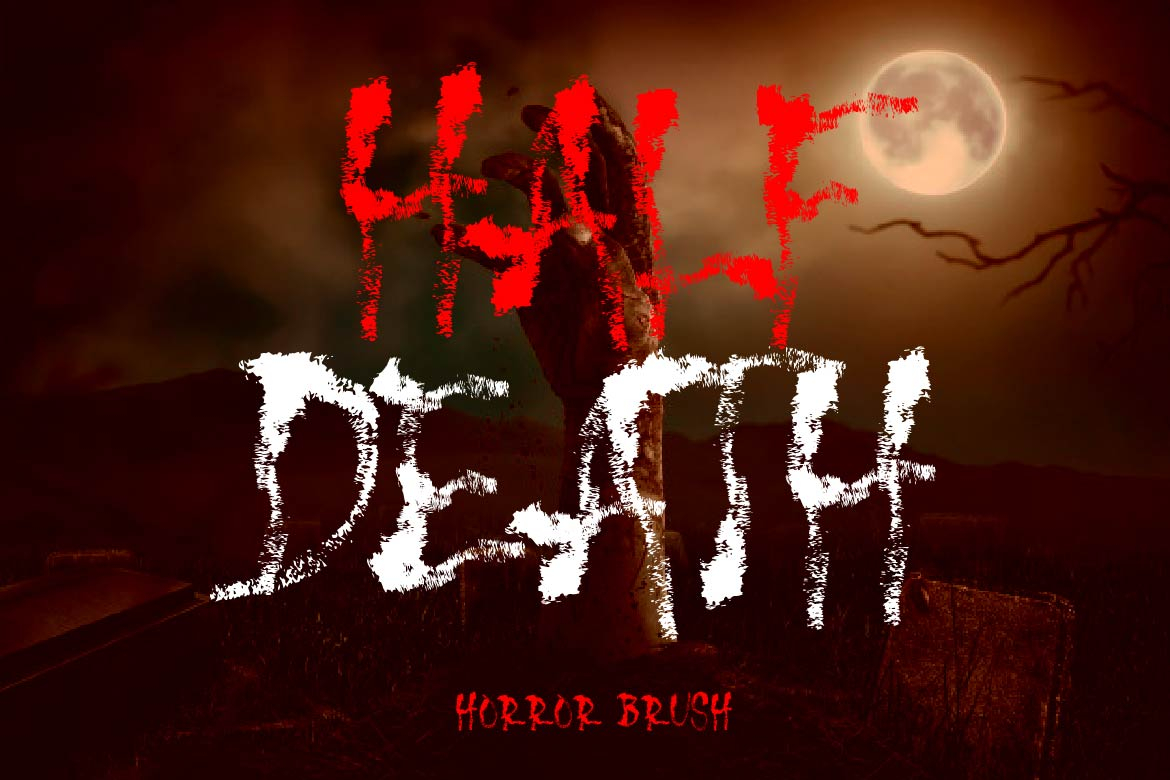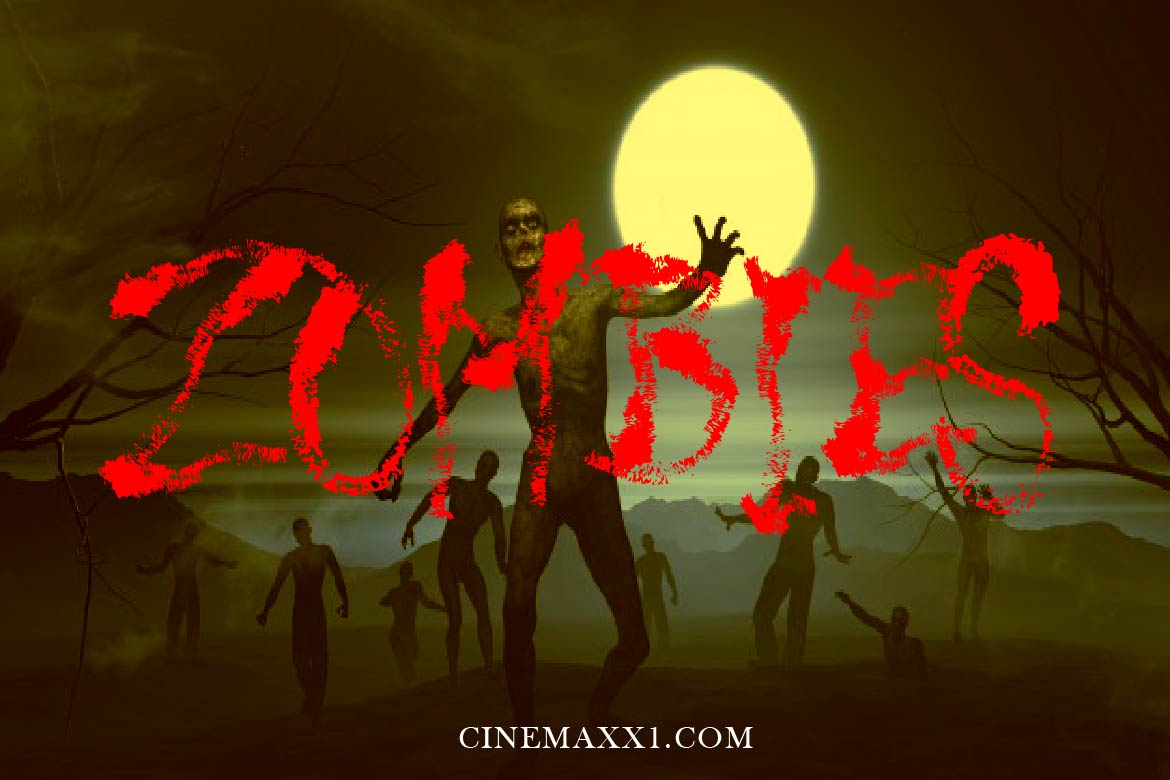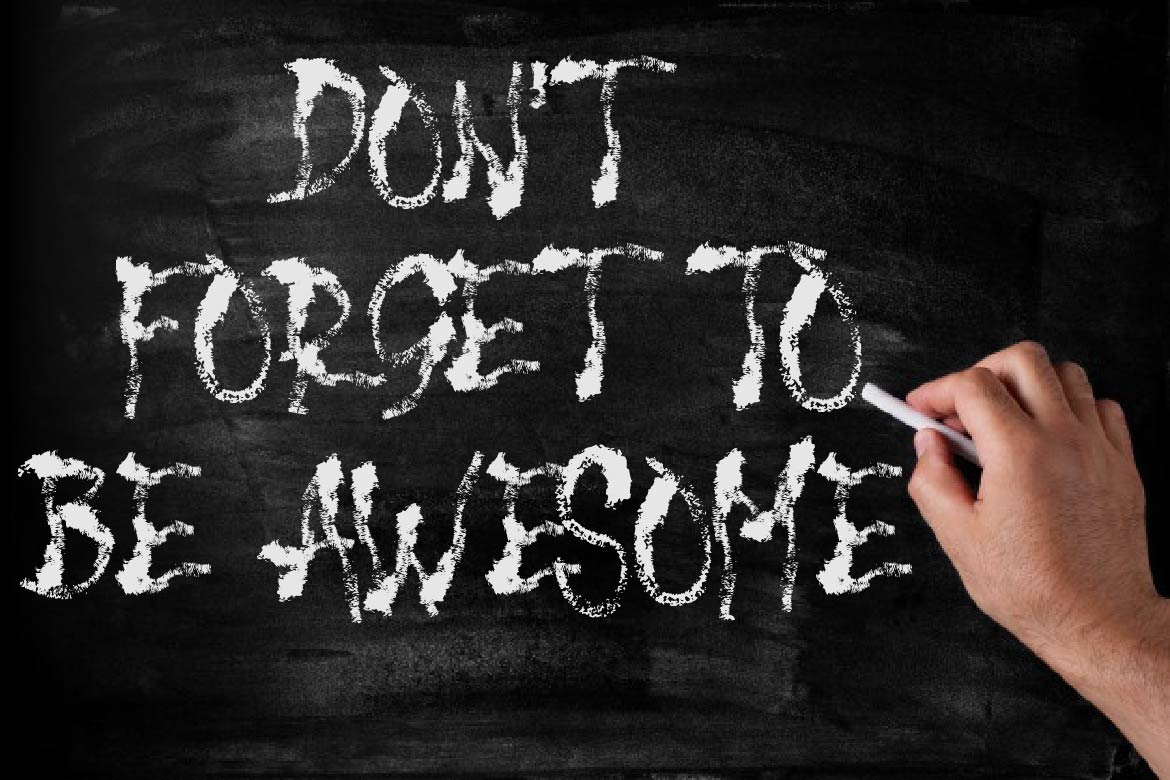
Half Death Font
About Half Death Font
Half Death is a raw and rough display font that’s great for any Horror or Halloween project. It will turn any message into an eye-catcher.